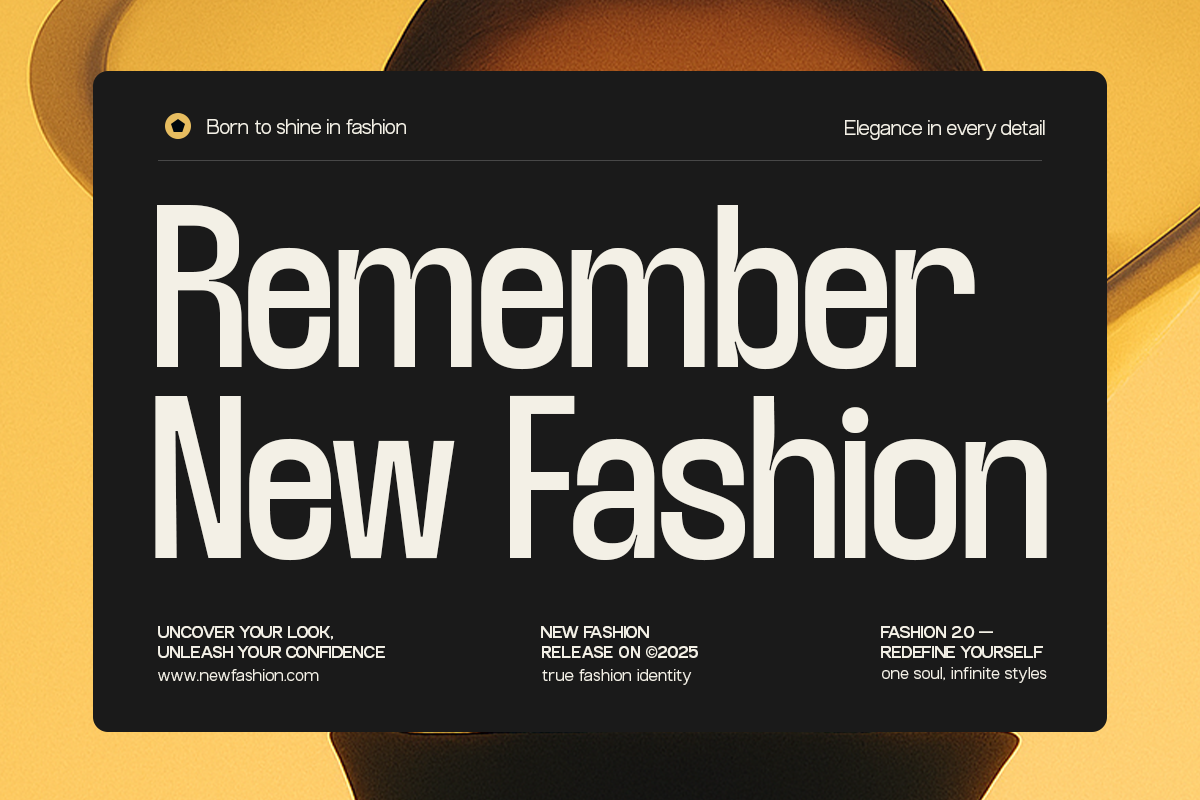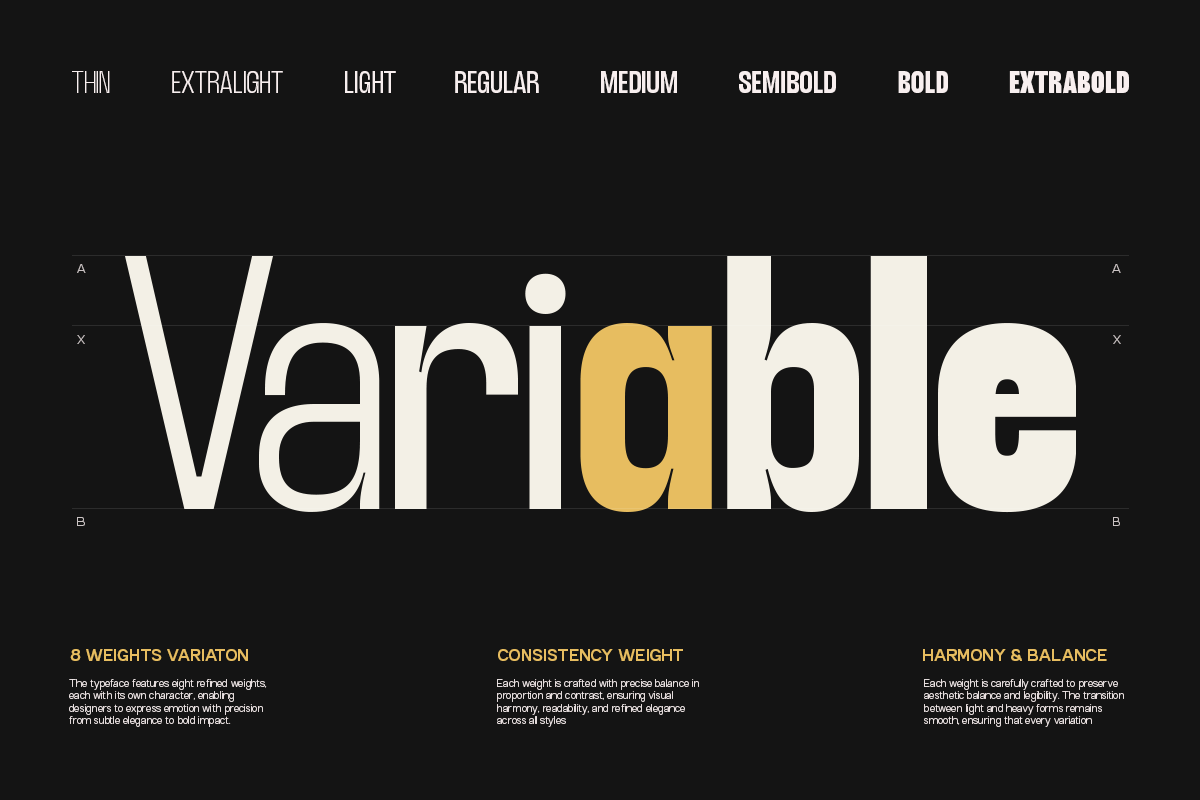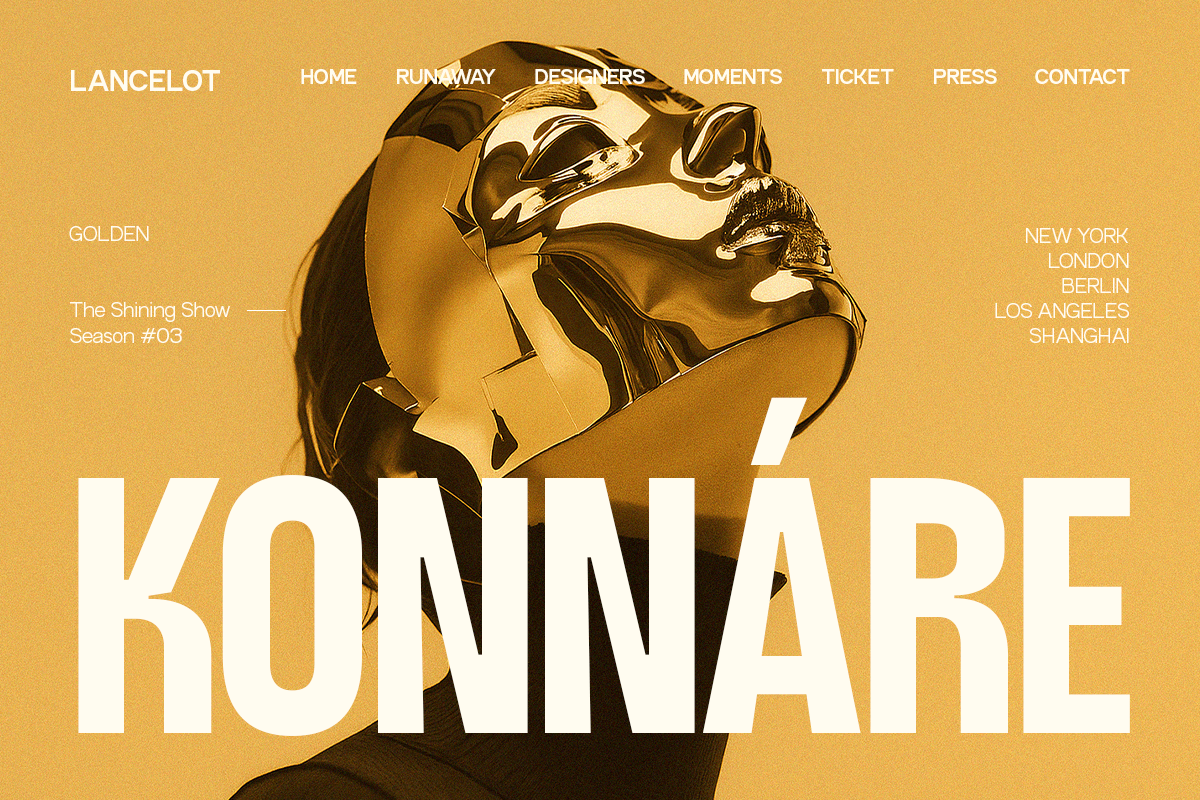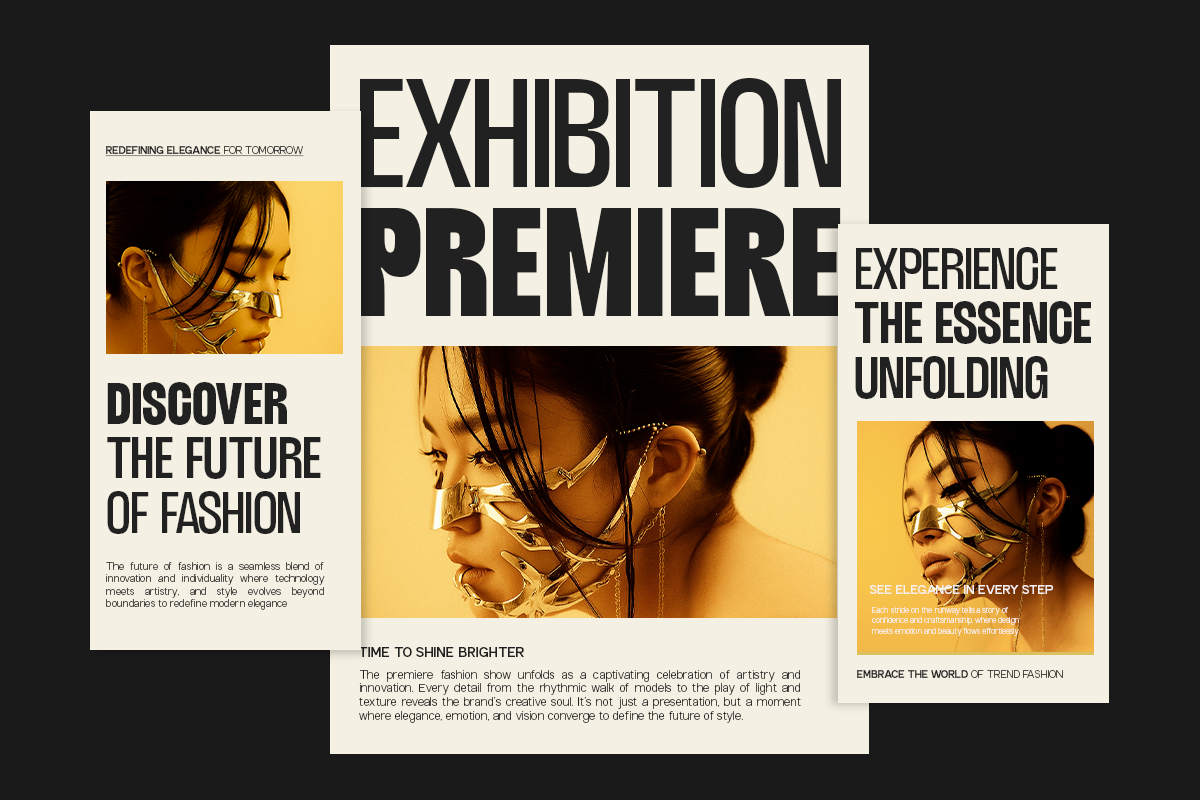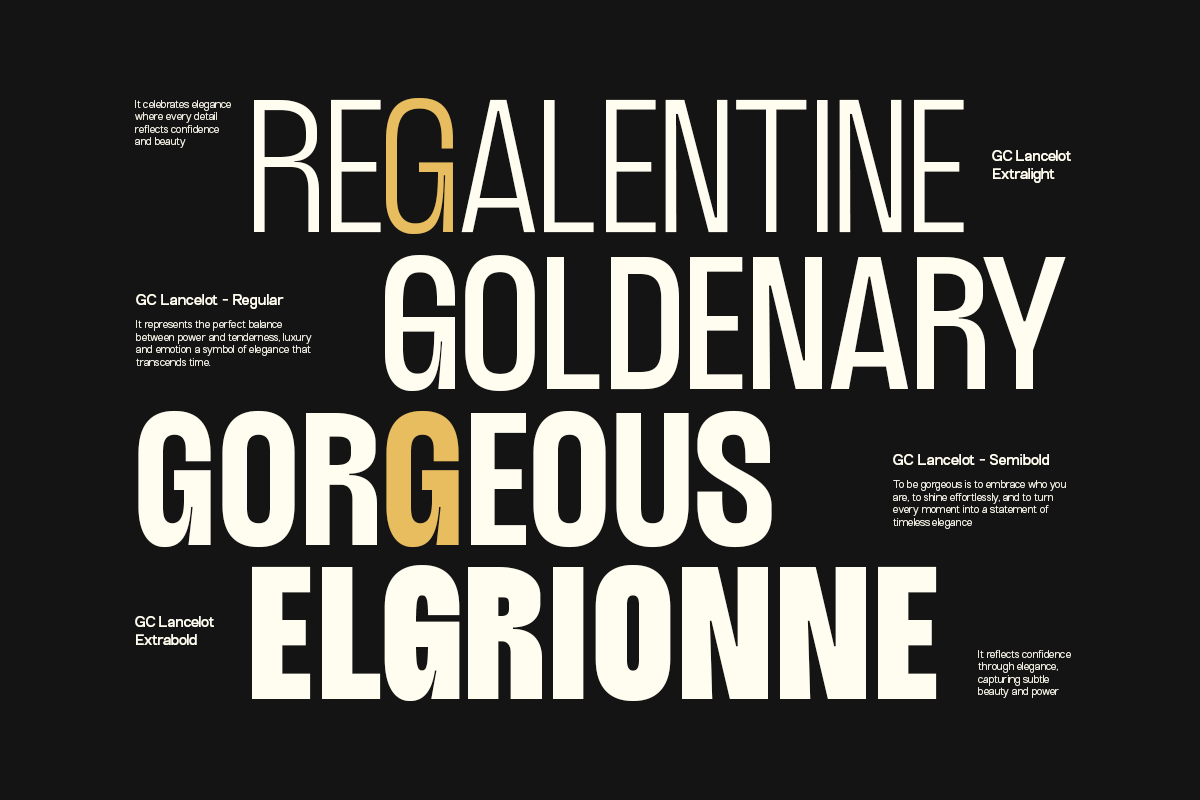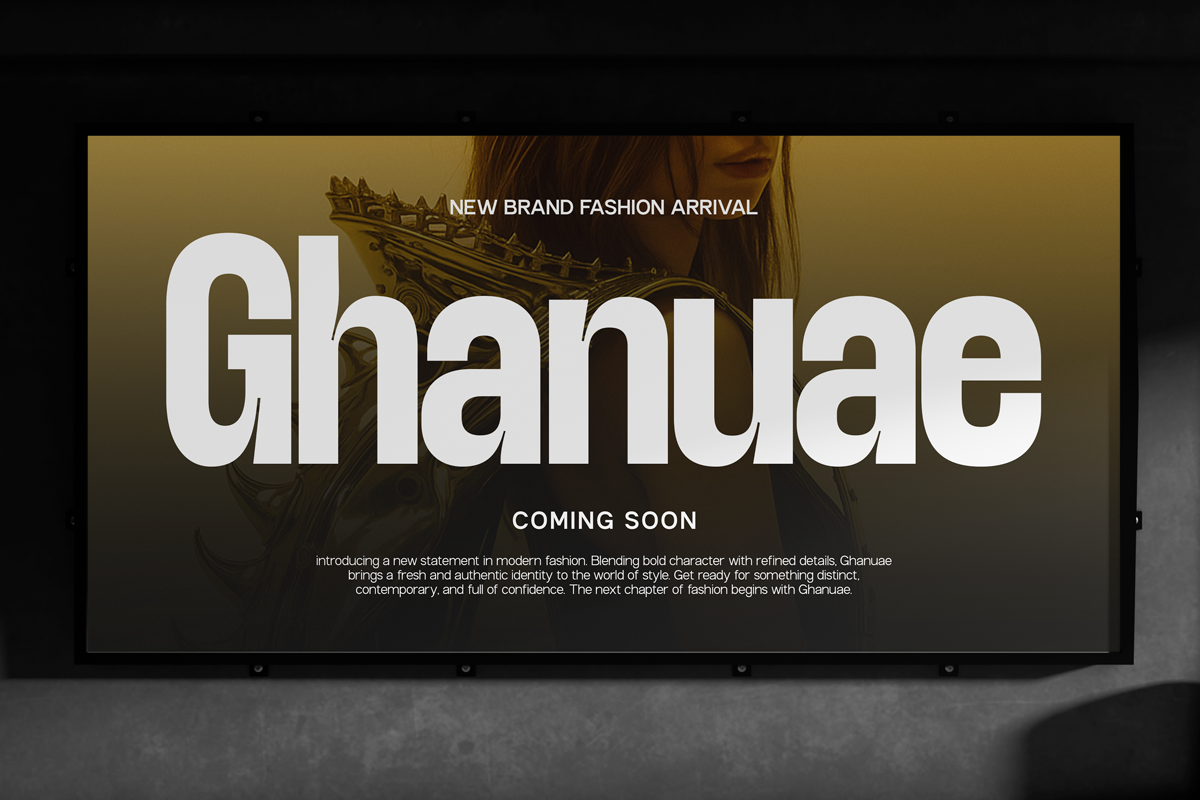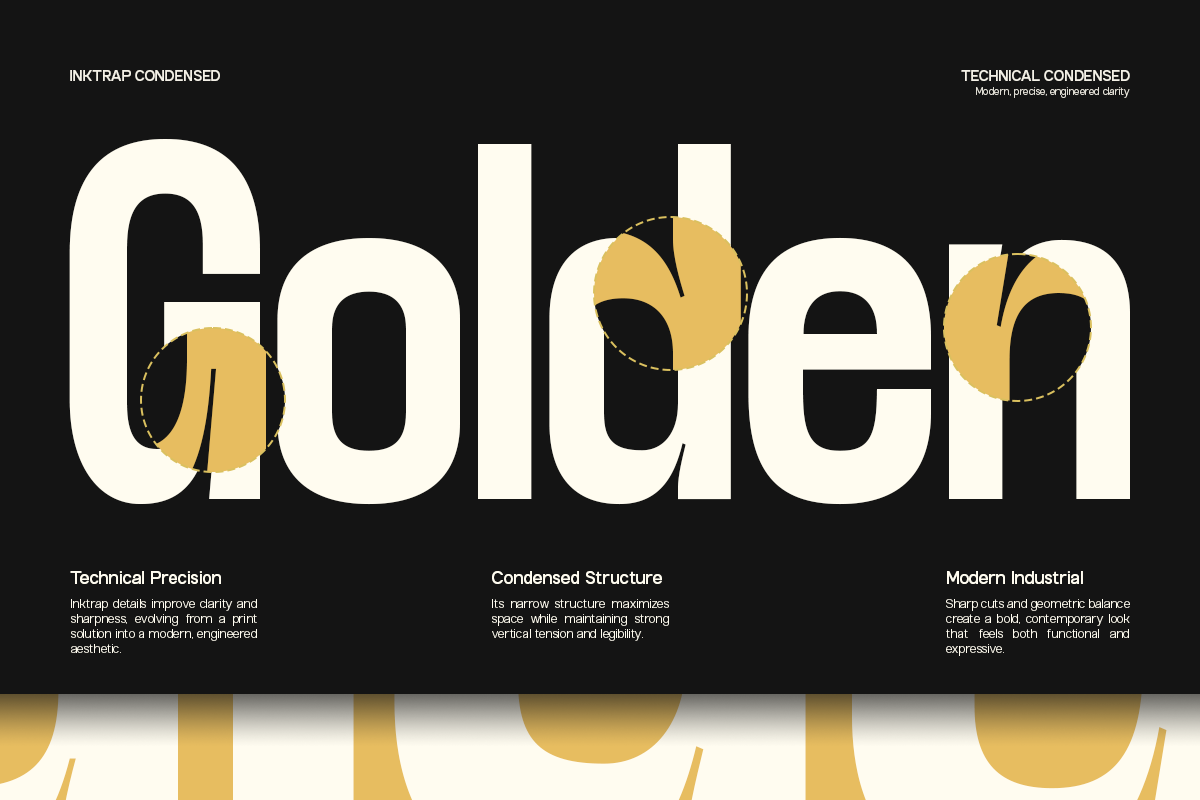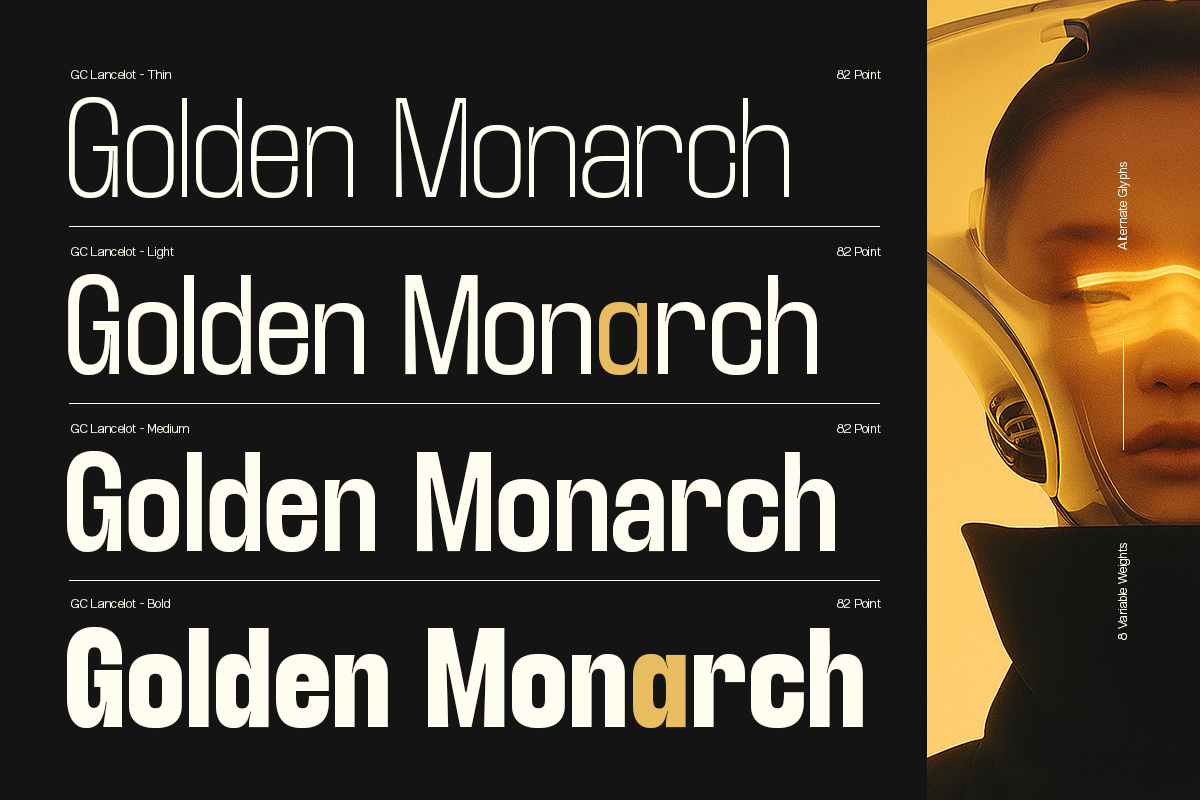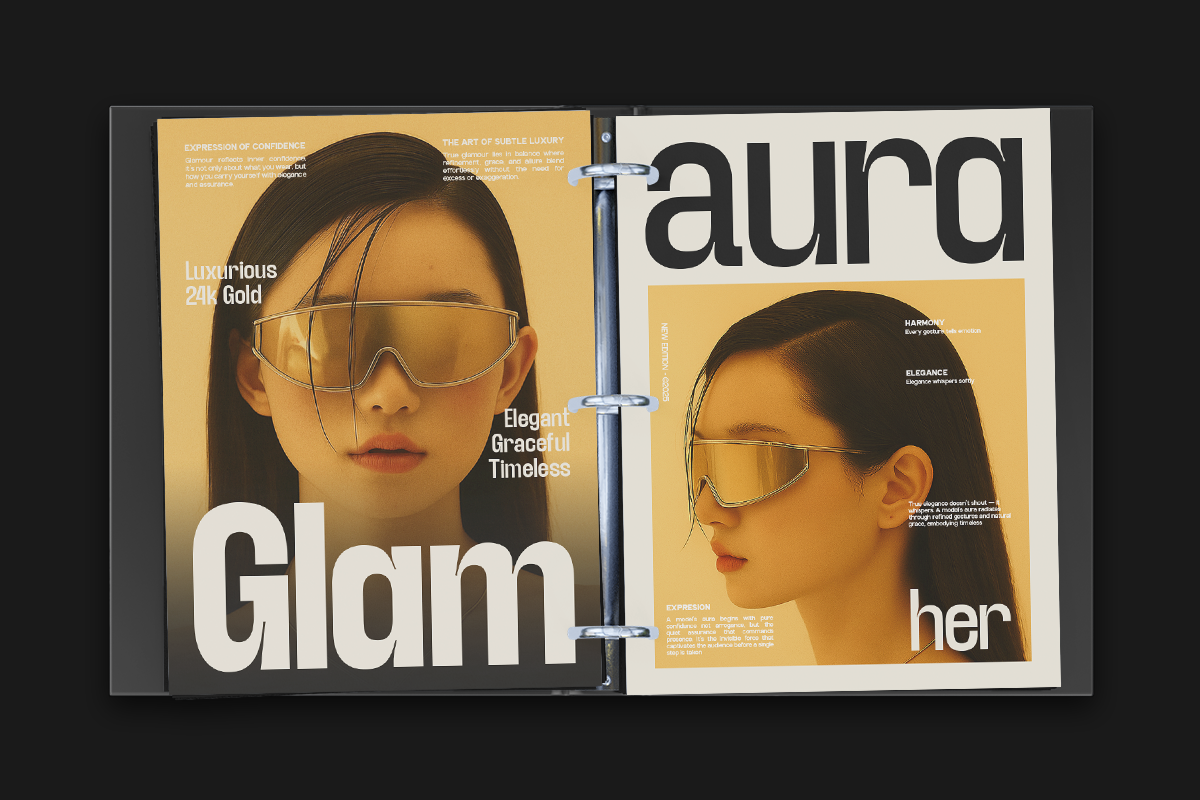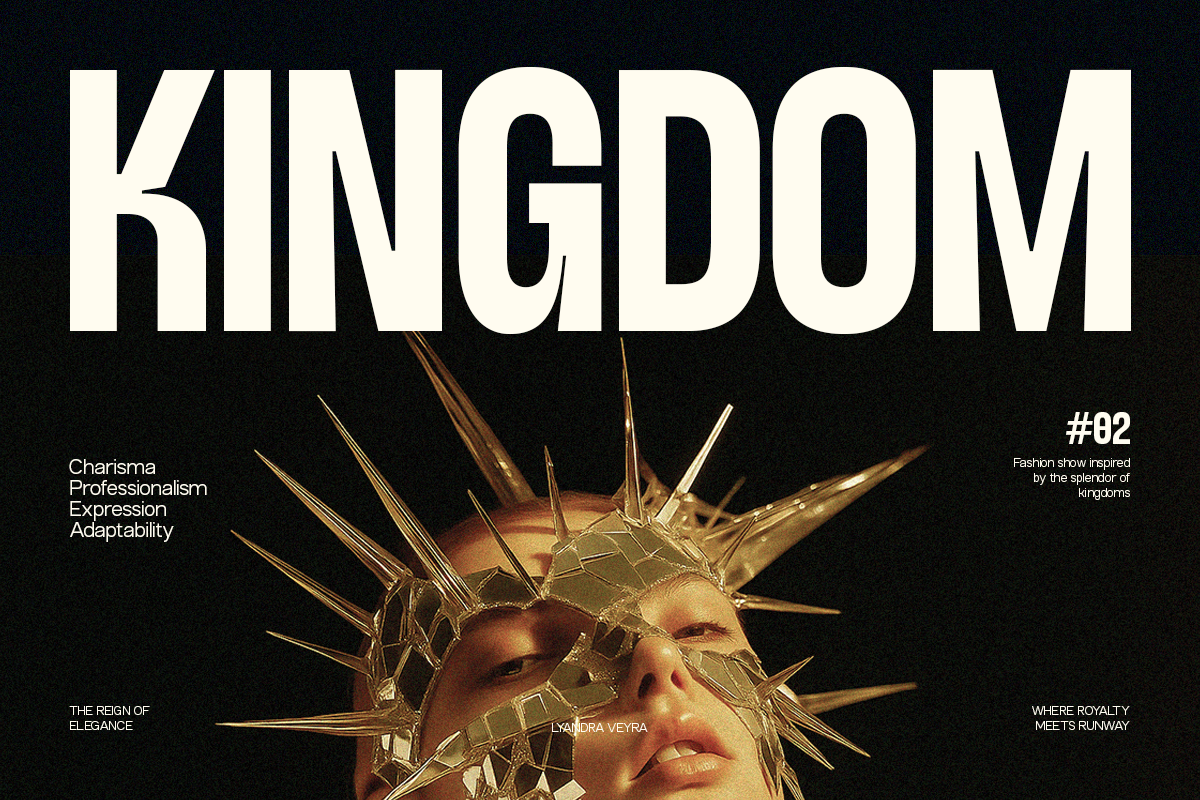
TRT Lancelot Condensed Font Family
TRT Lancelot is a modern condensed typeface featuring distinctive inktrap details and a full range of weights from Thin to Extra Bold. Its compact structure and sharp inktraps create a strong visual identity, making it perfect for impactful headlines, branding, posters, and editorial layouts.
Designed for both clarity and character, TRT Lancelot balances clean geometry with expressive shapes, delivering excellent readability even at small sizes while standing out boldly at larger scales. This versatility makes it a reliable choice for designers seeking a modern condensed font with a unique twist.